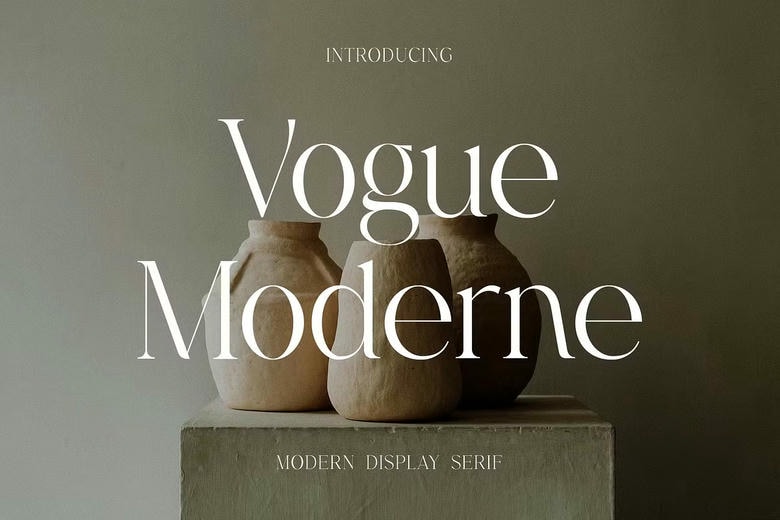
Vogue Moderne Font
Vogue Moderne Display Serif Font. The font utilized for the modern display also seems to be lovely classy, elegant and stylish. It is suitable in a wide range of areas, including signature, stationery, logo design, wedding invitations, typography quotes, magazine or book cover, web headers, branding and many others. As for the fashion related branding or editorial design both the male and female characteristics are seen.
Vogue Moderne Serif Font